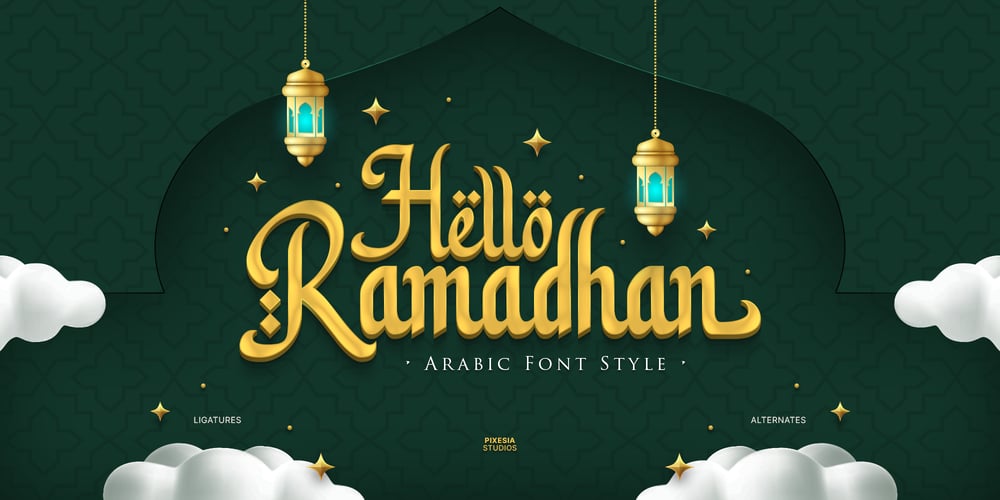
Hello Ramadhan Font Family was designed by Abul Almaududi and published by Pixesia Studio. Hello Ramadhan contains 1 styles and family package options. Introducing Hello Ramadhan – Arabic Display FontHello Ramadhan is a beautiful display font with an Arabic style. This font adds an authentic Middle Eastern touch to any text, making it perfect for design projects that require a unique and cultural aesthetic. Whether you’re working on a logo, website, or poster, Hello Ramadhan will bring a touch of authenticity and charm to your design. So if you want to add a touch of the exotic to your projects, give Hello Ramadhan a try today!FEATURES- Stylistic Alternates- Ligatures- PUA Encoded- Uppercase and Lowercase letters- Numbering and Punctuations- Multilingual Support- Works on PC or Mac- Simple Installation- Support Adobe Illustrator, Adobe Photoshop, Adobe InDesign, also works on Microsoft WordHope you Like it.Thanks.